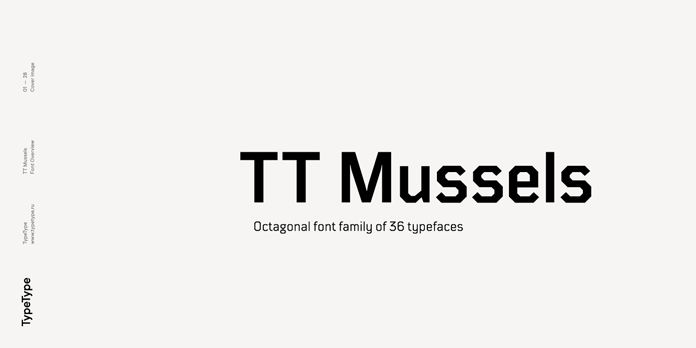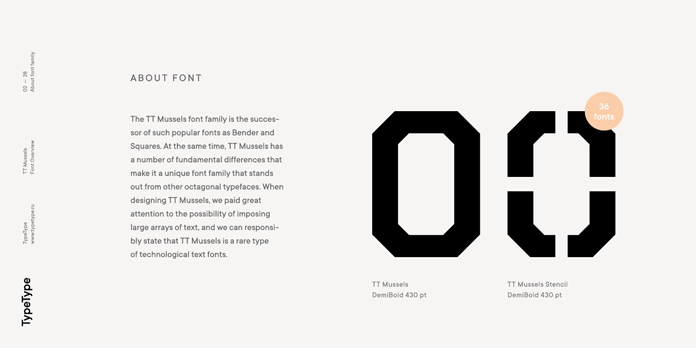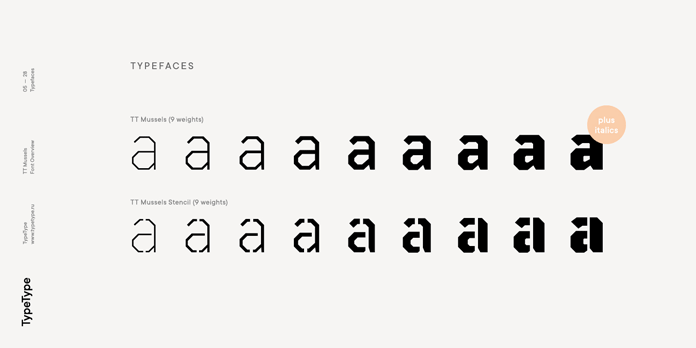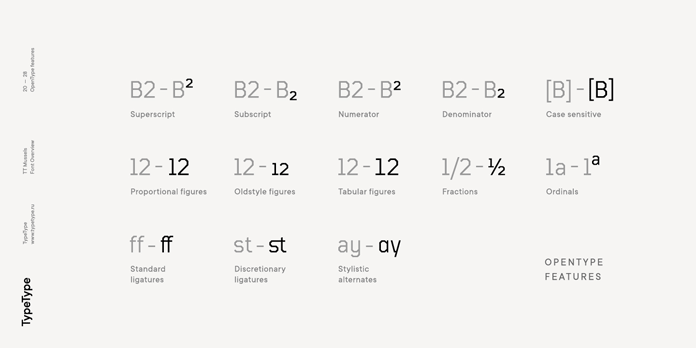
TT Mussels, an edgy, octagonal font family from foundry TypeType.
Designed by Vika Usmanova and the TypeType team in 2017, TT Mussels is an octagonal sans serif font family that comes with lots of typographic features. Vika Usmanova and the team paid much attention to the possibility of creating large arrays of text. The standard typeface is accompanied by a stencil version with a changing location of the incisions according to the thickness. Both standard and stencil version come in 9 weights plus matching Italics resulting in a total of 36 typefaces. The font family has a dynamic contrast of horizontal and vertical strokes depending on the weight. TT Mussels is also equipped with a wide range of OpenType features including Superscript, Subscript, Numerator: Denominator, Case sensitive, Proportional figures, Oldstyle figures, Tabular figures, Fractions, Ordinals, Standard Ligatures, Discretionary ligatures, and Stylistic Alternates.